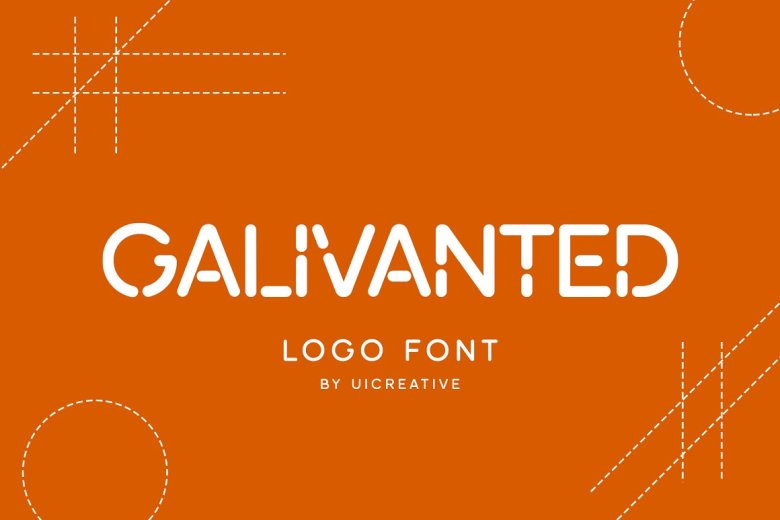
Galivanted Font
Galivanted is a Logo sans serif font that feels beautiful, classy, elegant and modern. This font is ideal for a wide variety of projects — signature, stationery, logo, wedding typography quotes, magazine or book covers, website headers, clothing & branding, packaging design and more.
Galivanted Logo Sans Font